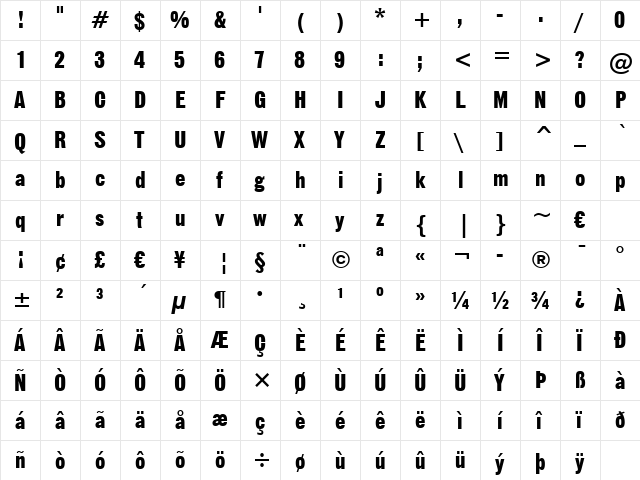
GothicNo13 BT Regular
Design Context for GothicNo13 BT Typeface
GothicNo13 BT takes a clean, functional approach — its unadorned letterforms prioritise legibility and work reliably across screen and print environments.
Font Pairing: Works well alongside a characterful serif or display font that can carry the expressive load while GothicNo13 BT handles the functional copy.
Pro Tip: Use GothicNo13 BT for UI labels, navigation, and short-form body copy where clean legibility is the priority.